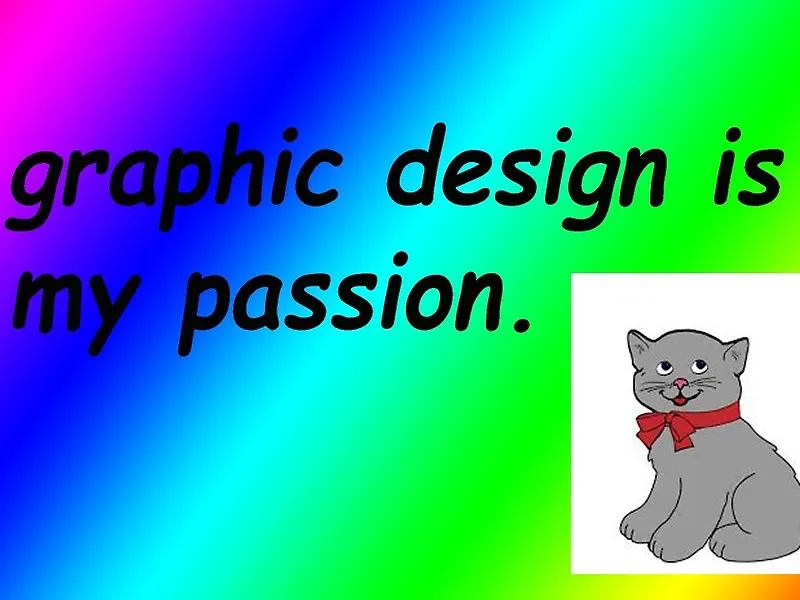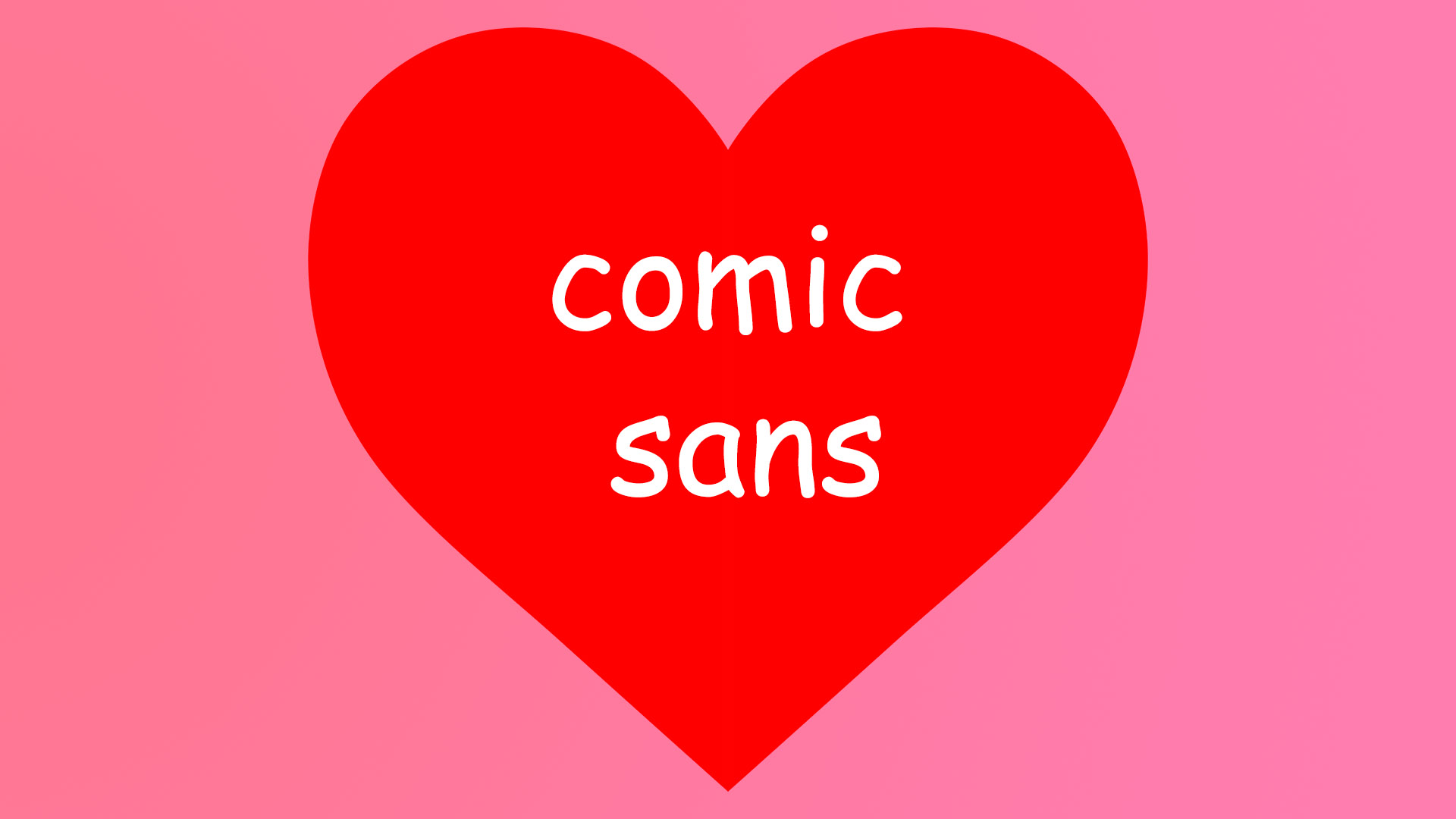
Hear me out, Comic Sans is actually perfect
Is it time to give the divisive font its flowers?
Comic Sans was once the king of Y2K graphic design – a fun and characterful font among a sea of stuffy serifs. Today, it is the post-ironic child of a bygone era, but its origins spread far beyond its whimsical aura. Consider this my plea to think twice before you judge Comic Sans.
While it's by no means the sexiest, Comic Sans has become one of the most iconic typefaces ever made. Whether you love it or loathe it, the practical origins of this humble font are not to be overlooked – it's time we give Comic Sans its flowers.
According to Carrick Signs' signage and print expert Mandy Roscoe, Comic Sans was originally created to solve a very specific communication problem, made to “mimic informal, handwritten speech in cartoons, not to decorate official notices." Mandy explains, "The problem isn’t the font itself. It’s when it’s used in the wrong context for the message being delivered.”
The sour reception to Comic Sans over the years isn't completely unjustified, as Mandy explains, "Fonts carry meaning in the same way colours and symbols do." Comic Sans' unfortunate over-saturation over the years has led to it losing its sense of purpose. "When you use a playful, handwritten style on something serious, it weakens trust. People subconsciously take the message less seriously, even if the words are important.” Mandy adds.
Where Comic Sans shines is in its accessibility. Groups like the British Dyslexia Association have found that rounded, clearly separated letters lacking the flourish of serif fonts can be easier to read for certain people.
“For short, friendly messages, especially in schools, family venues or community spaces, Comic Sans can be more readable than many traditional fonts,” Mandy says. "It avoids mirrored letter shapes, uses wide spacing, and closely resembles the handwriting children are taught.”
In short, Comic Sans is never going to be among the best professional fonts for designers, but it serves an important purpose. It may be juvenile and slightly silly by today's standards, but it holds a special place in my heart. Long live Comic Sans.